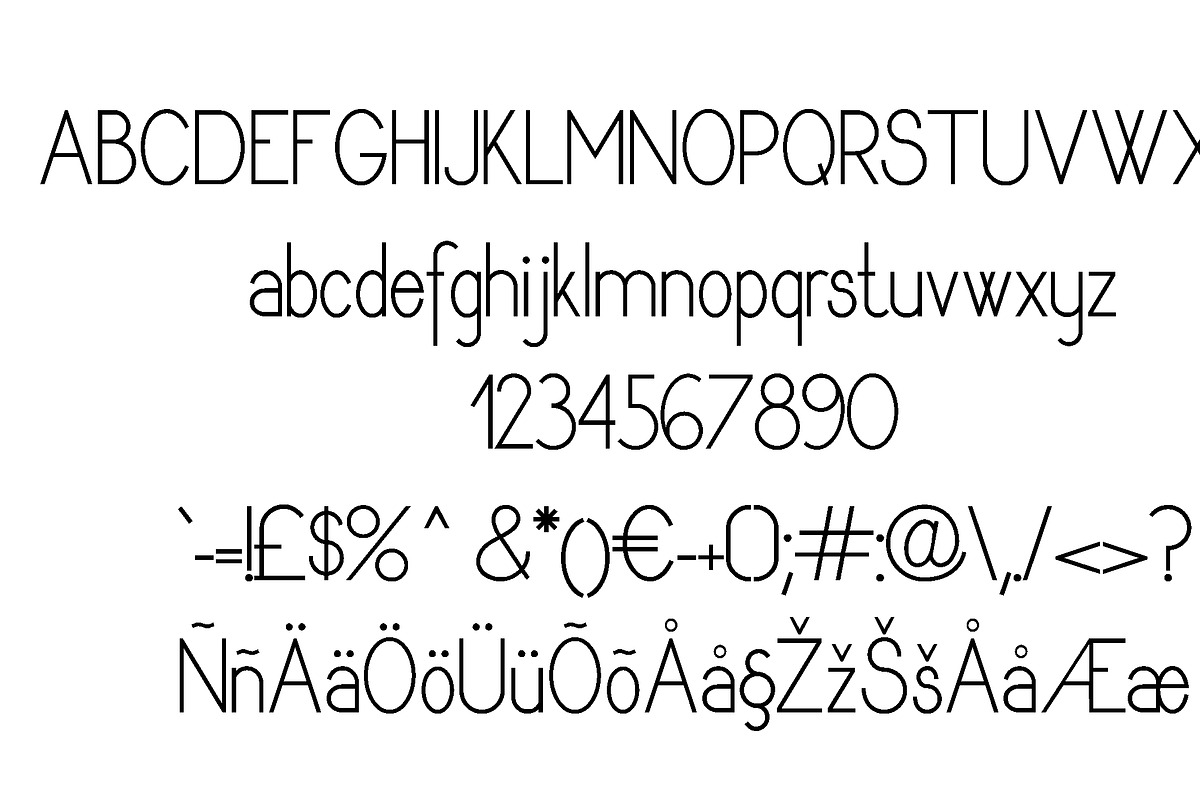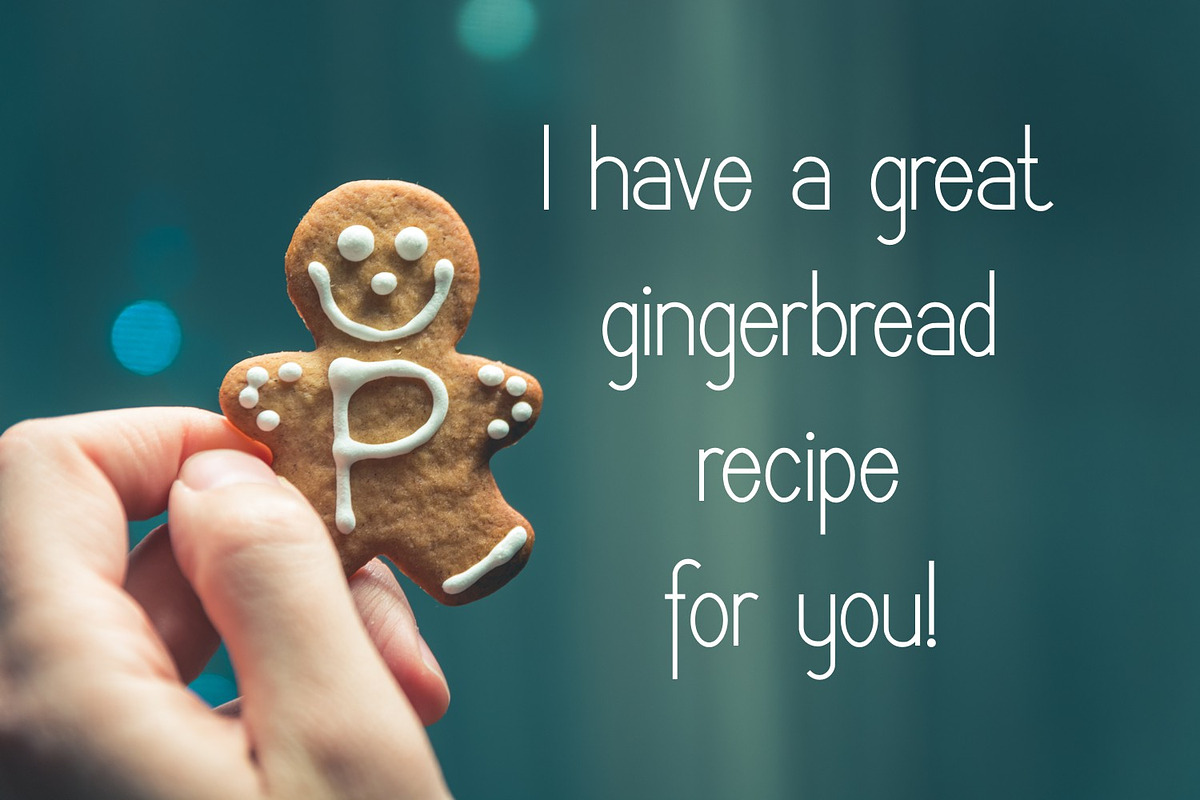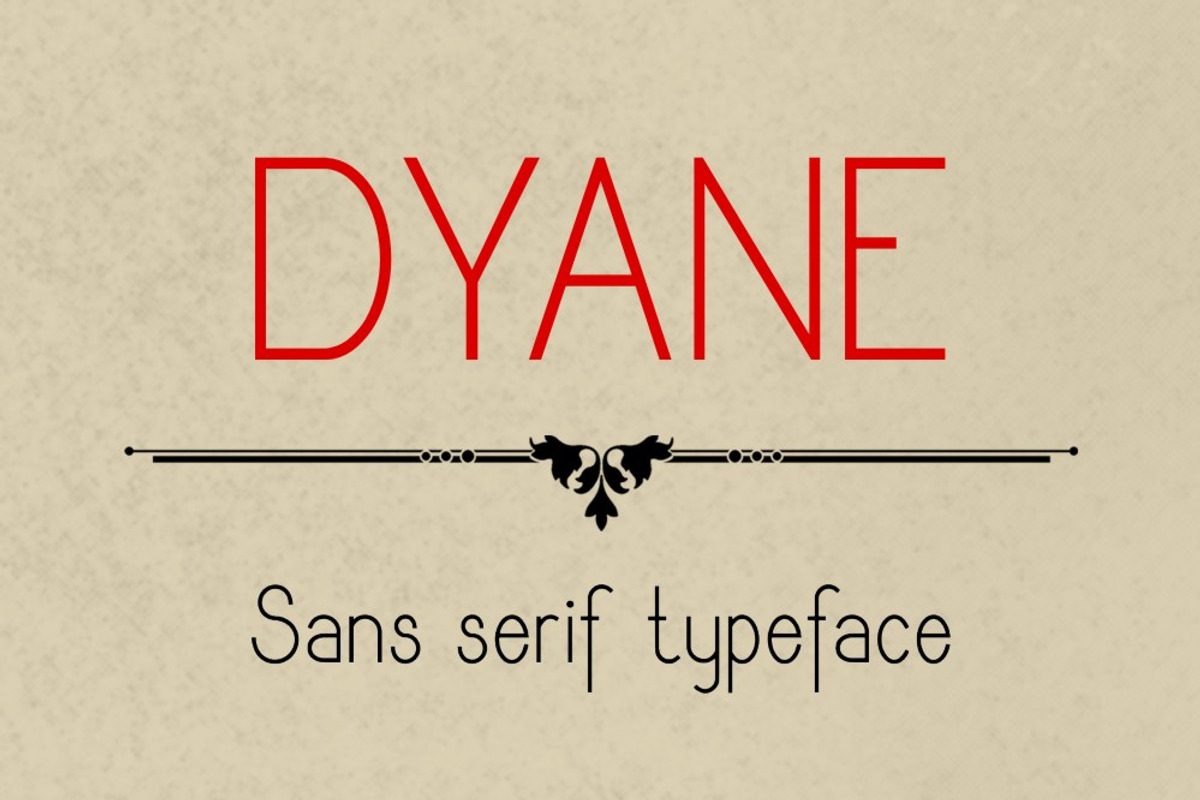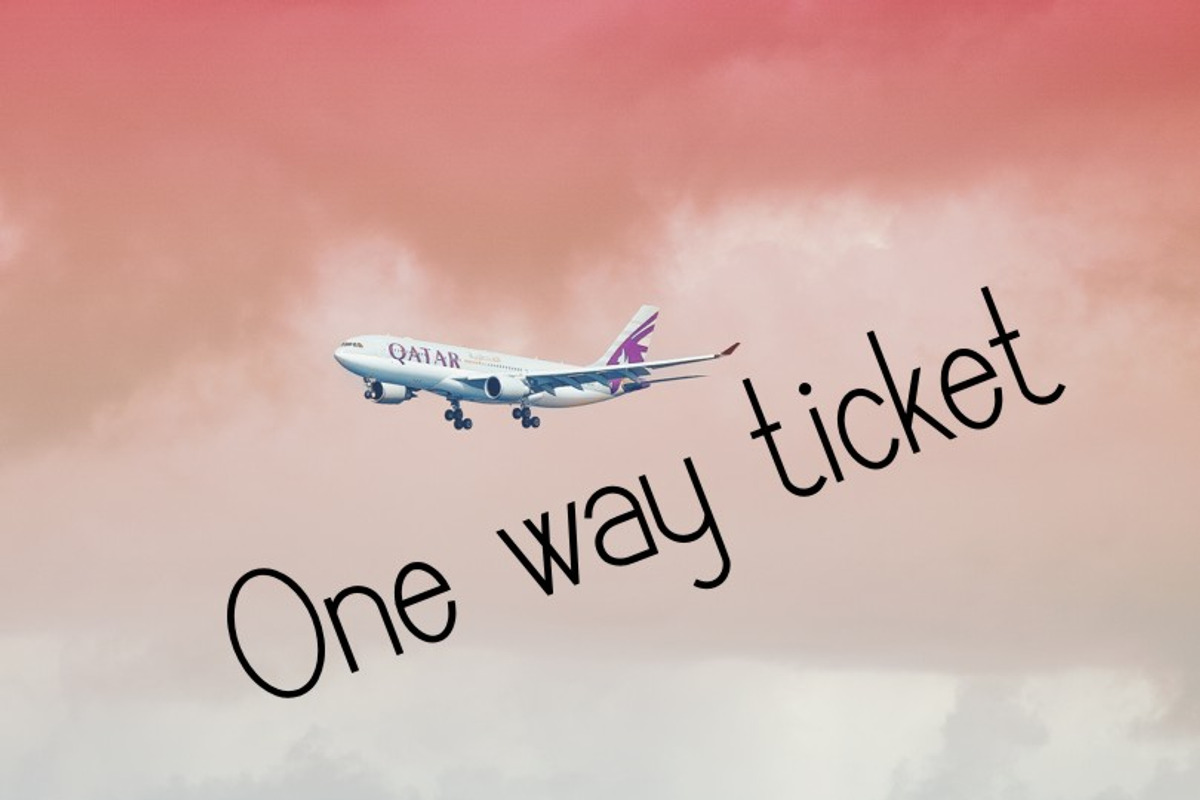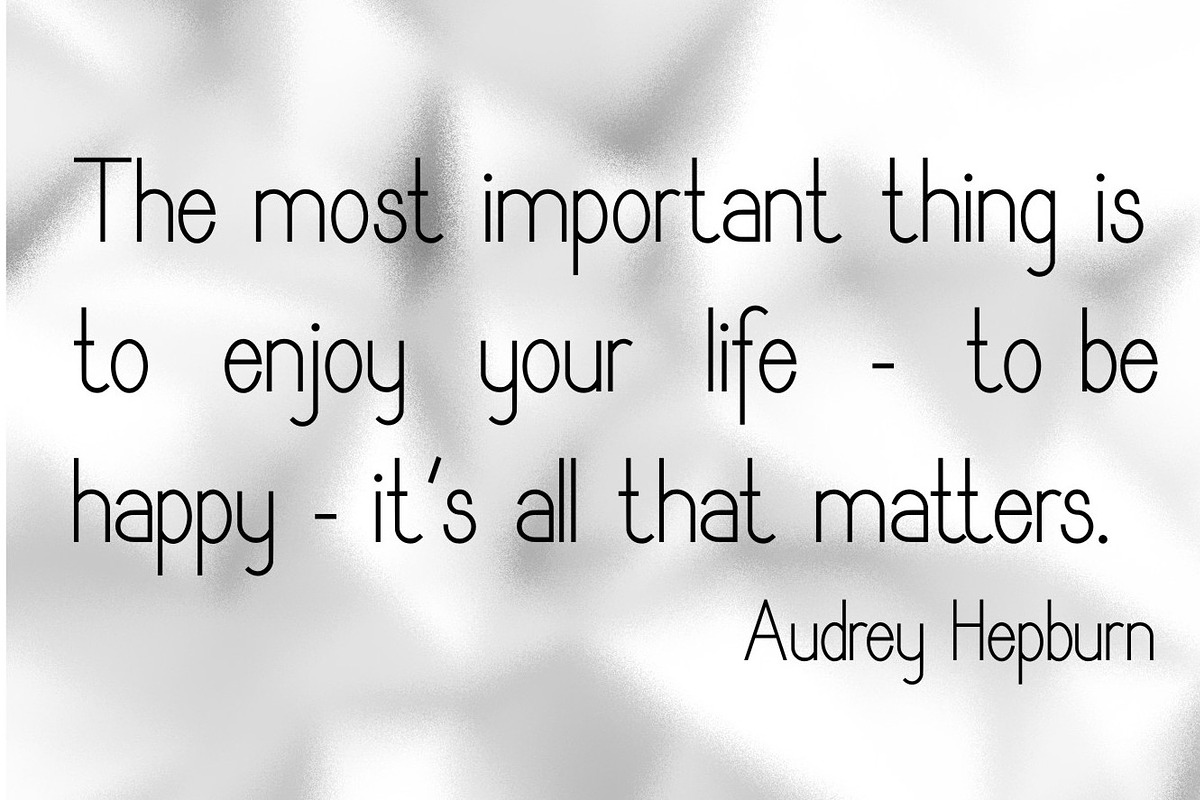
Dyane Font
Dyane Font by Digital Typeface Studio is a font selected for branding, posters, packaging, typography.
- Multi purpose use as it has upper cases, lower cases (extended with europian characters), numbers, punctuations, currency symbols and other
Dyane Font by Digital Typeface Studio fits naturally into Branding, posters, packaging, typography.